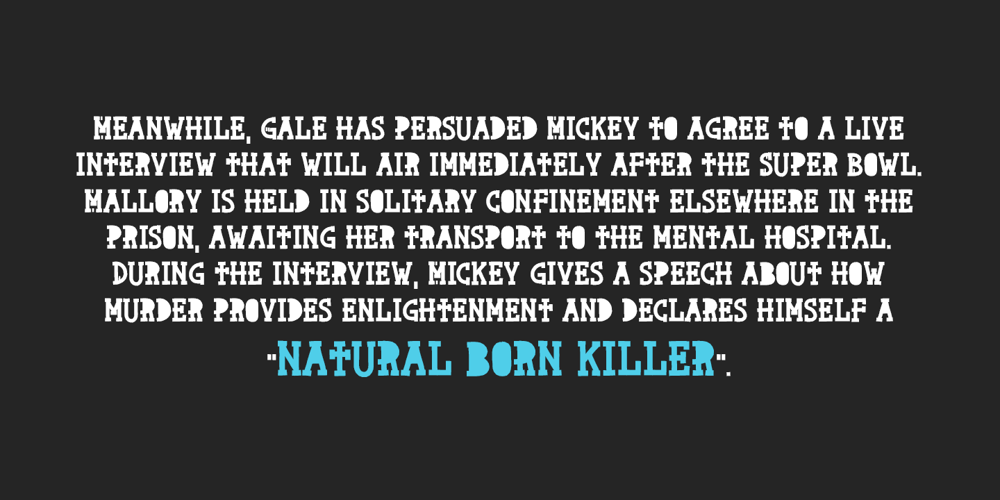
Natural Born Designer Font Family was designed by David Alexander Slaager and published by Fonts of Chaos. Natural Born Designer contains 1 styles and family package options. True bold font, only available in uppercase but with different styles. This font of 106 characters is really easy to use in your design and takes his inspiration from the old school post graffiti. The name comes from the movie “Natural Born Killers” by Oliver Stone. UPPERCASE lowercase Numerals Punctuation 106 characters